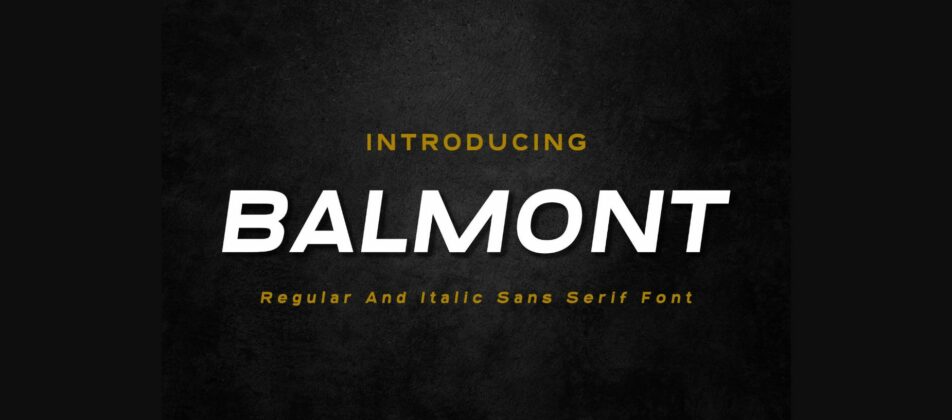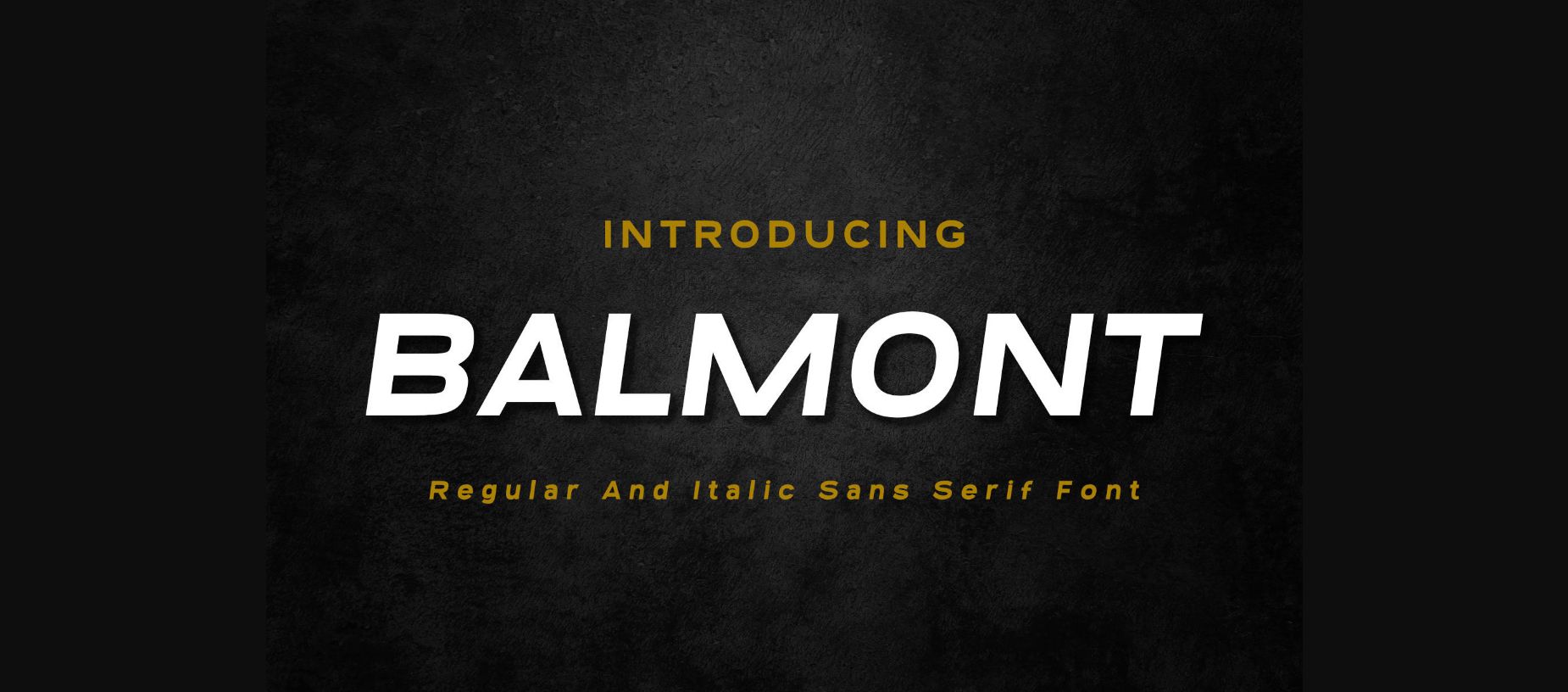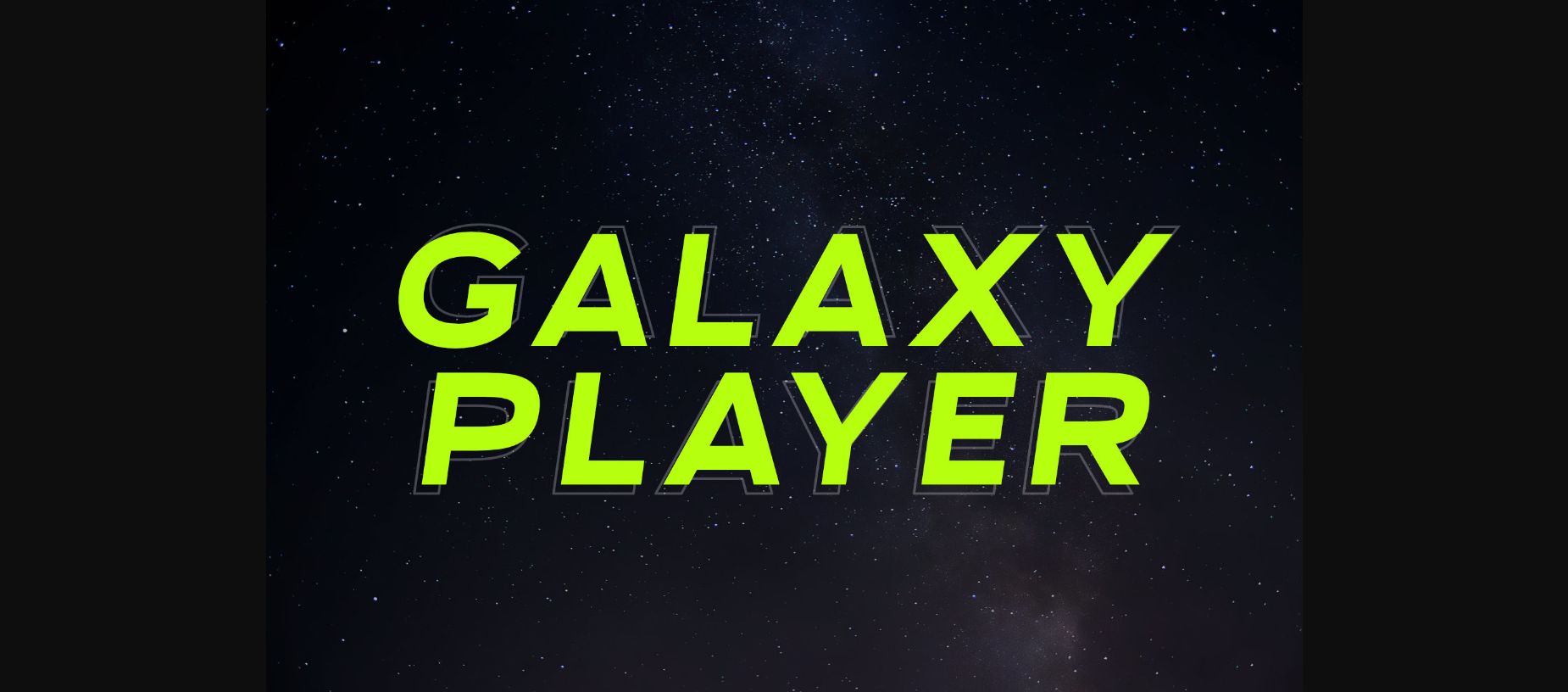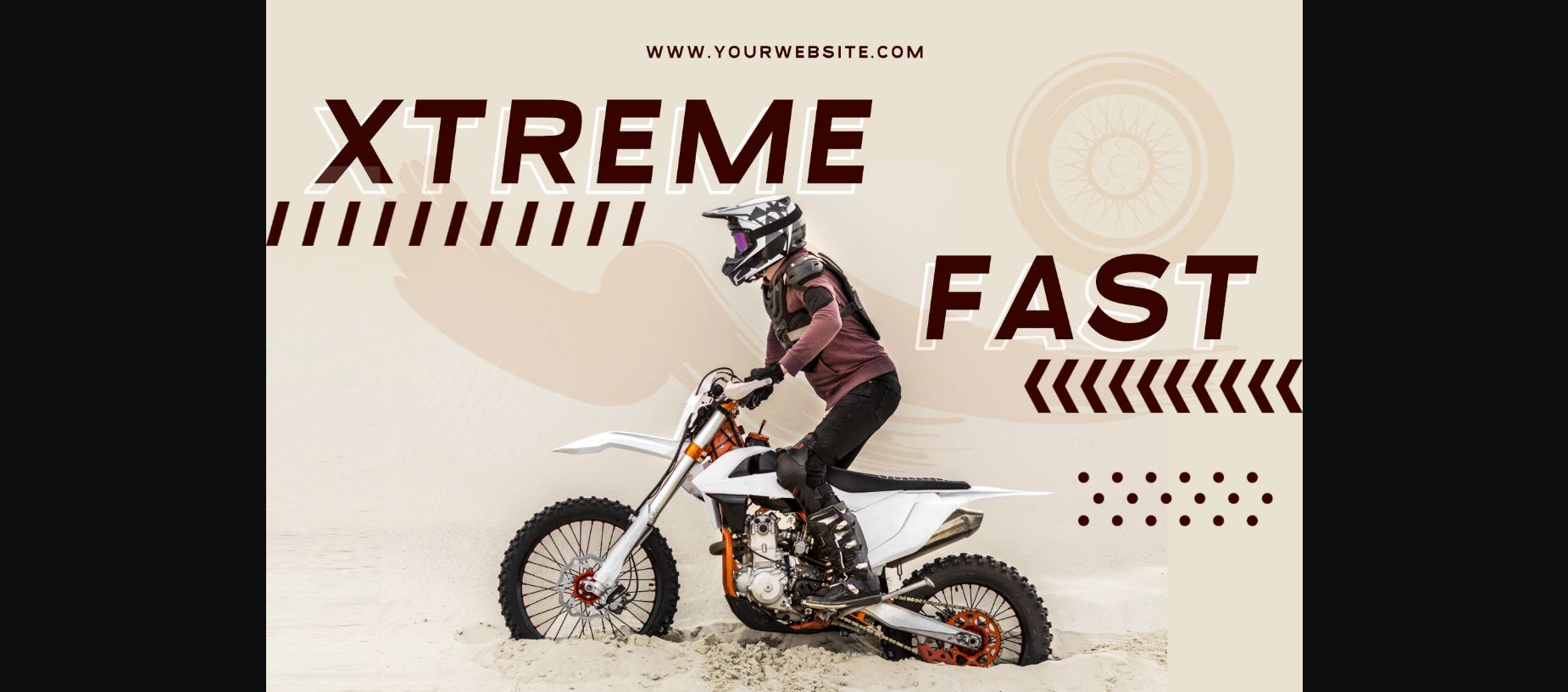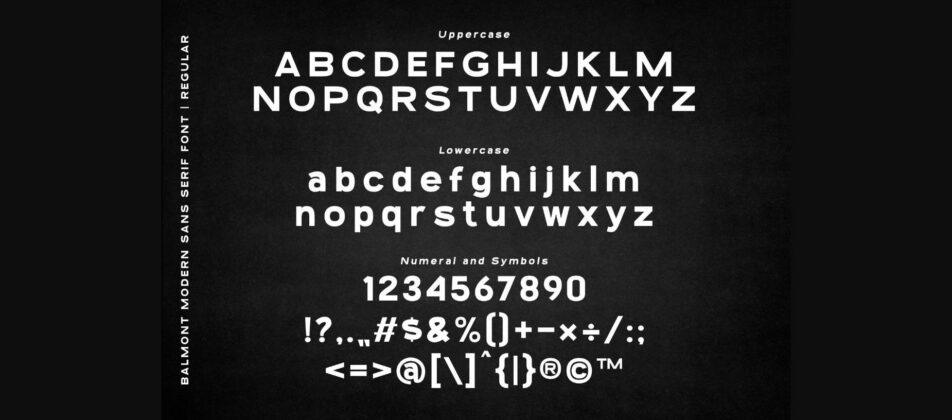
About Balmont Font
Balmont is a modern sans serif font that is perfect for any design project that requires a sleek and elegant look. This font has two styles, regular and italic, that you can use to create different effects and moods. Balmont is a versatile font that can suit various themes and purposes, such as logos, posters, flyers, banners, or social media graphics.